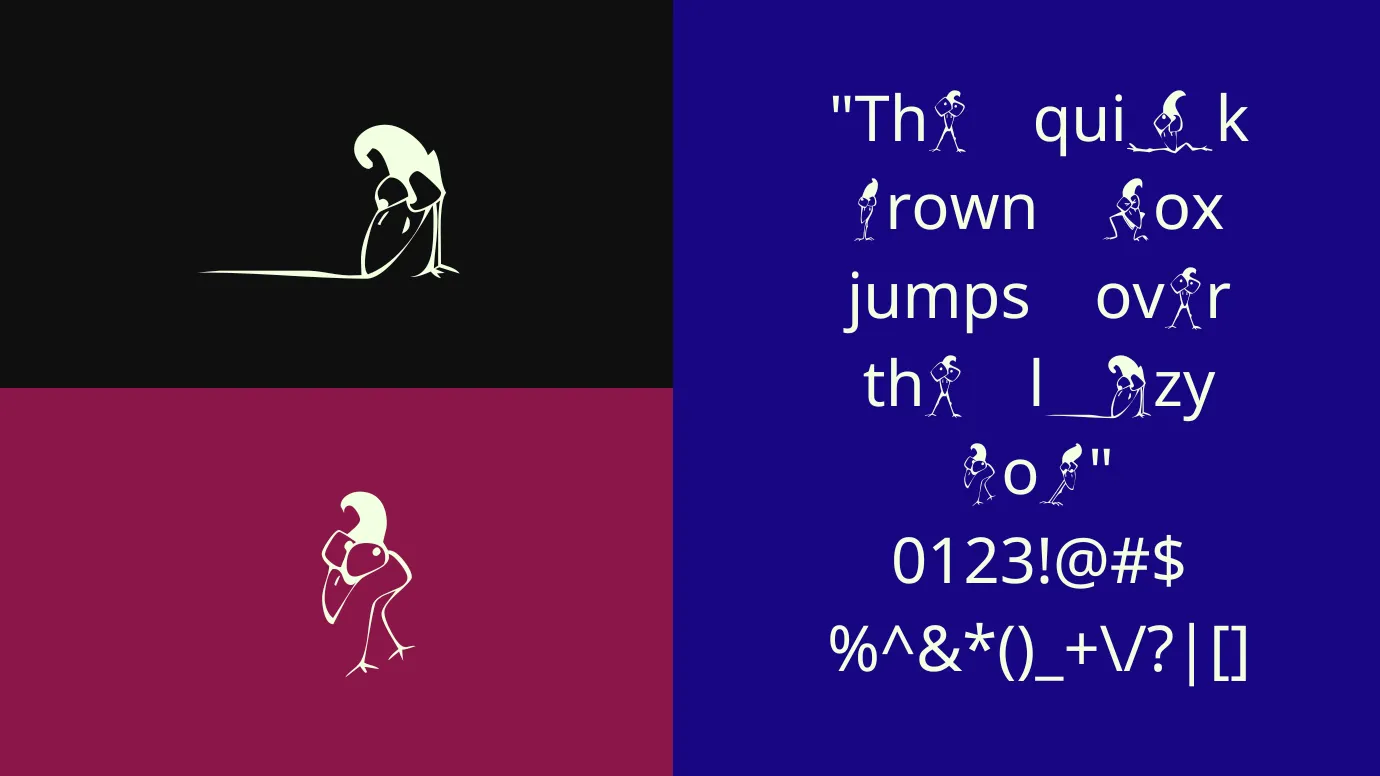
Crazy Crow Font is a very unique dingbat font. It was designed by Katsfun. You can make so many interesting projects by using this font.
It has crow-shaped dingbats which give an immense look to your cartoon and other projects. An online generator tool supports this font you can convert your simple style font into this amazing font by just copying and pasting data into that tool. It immediately changes the texture of the font.
Crazy Crow Font